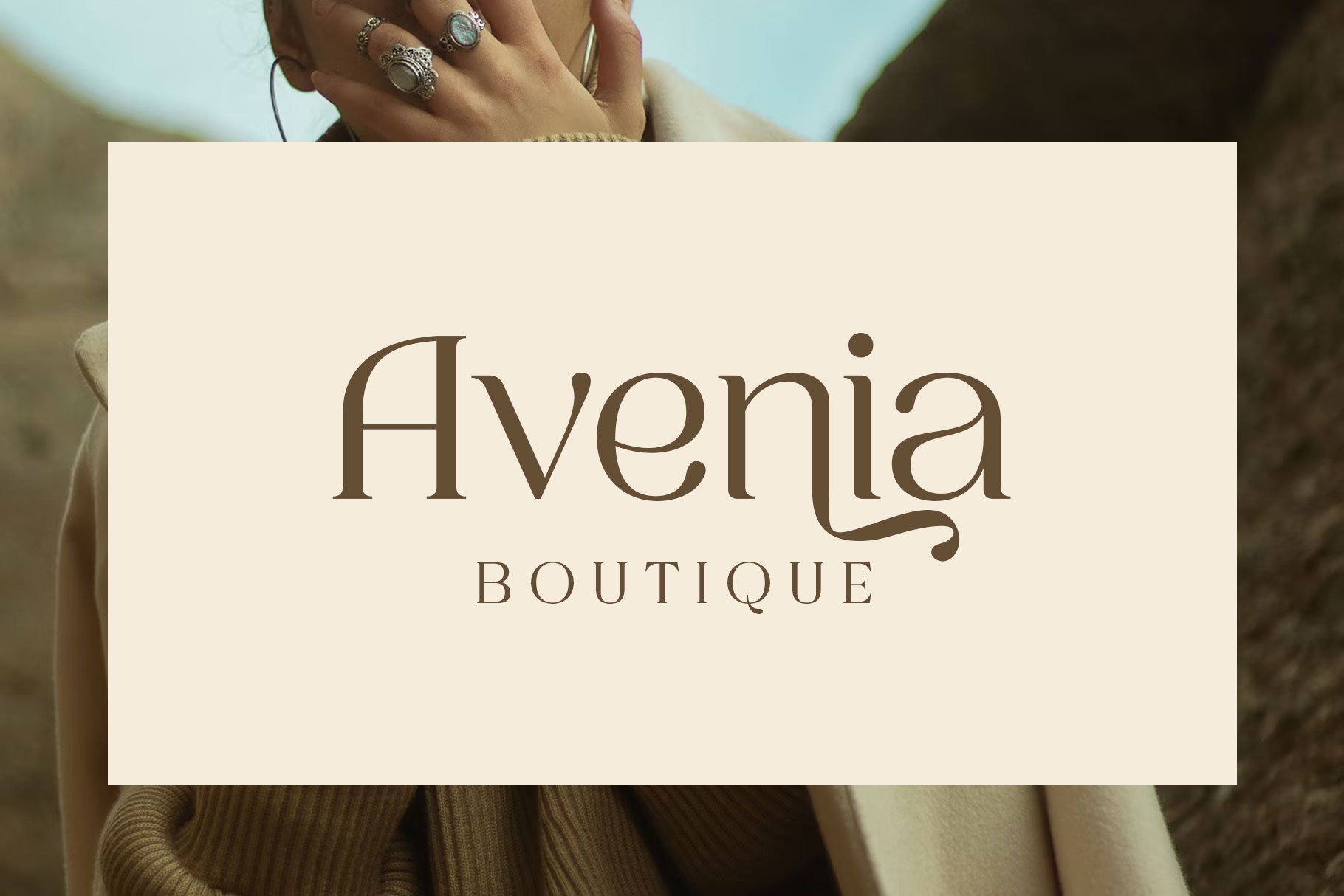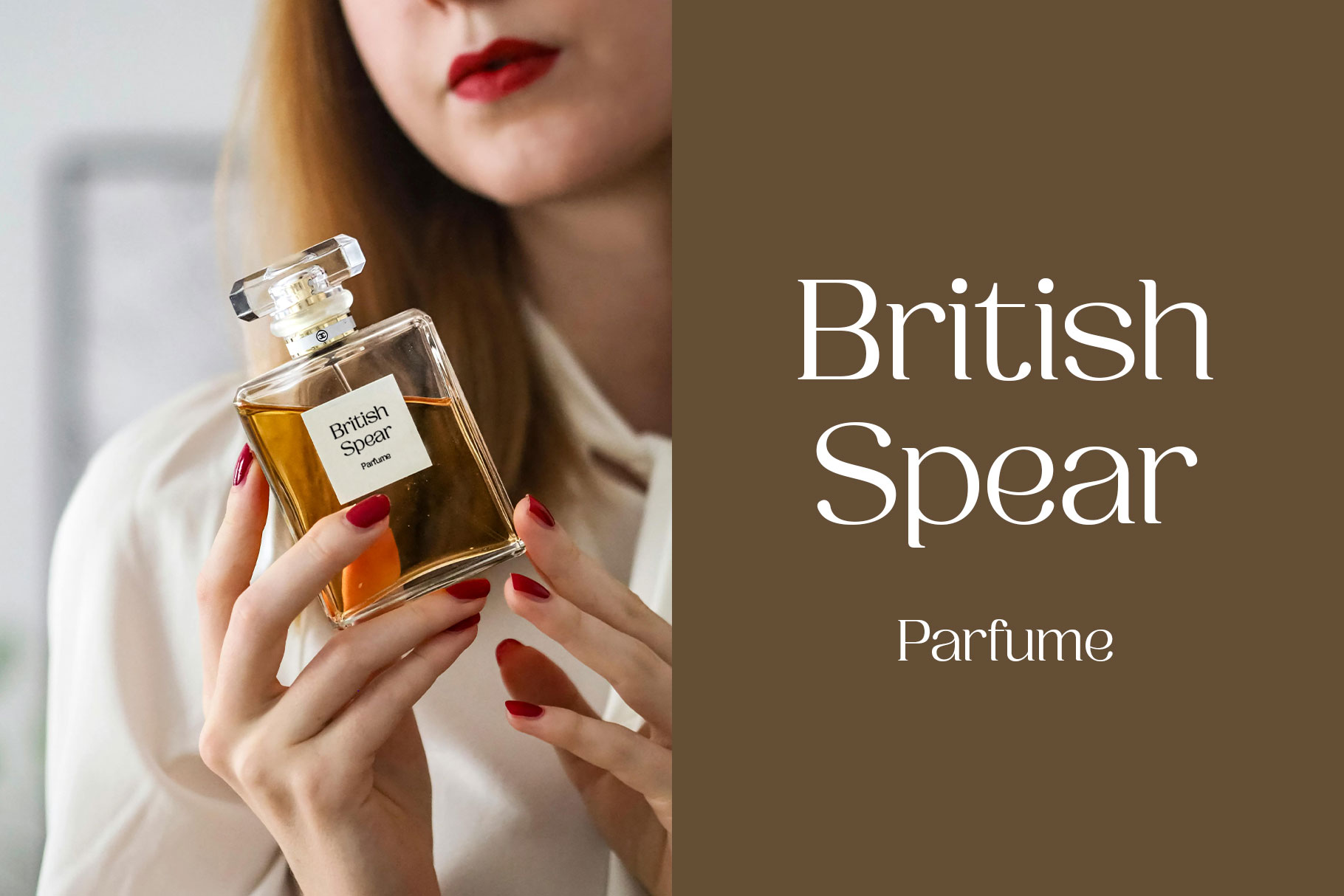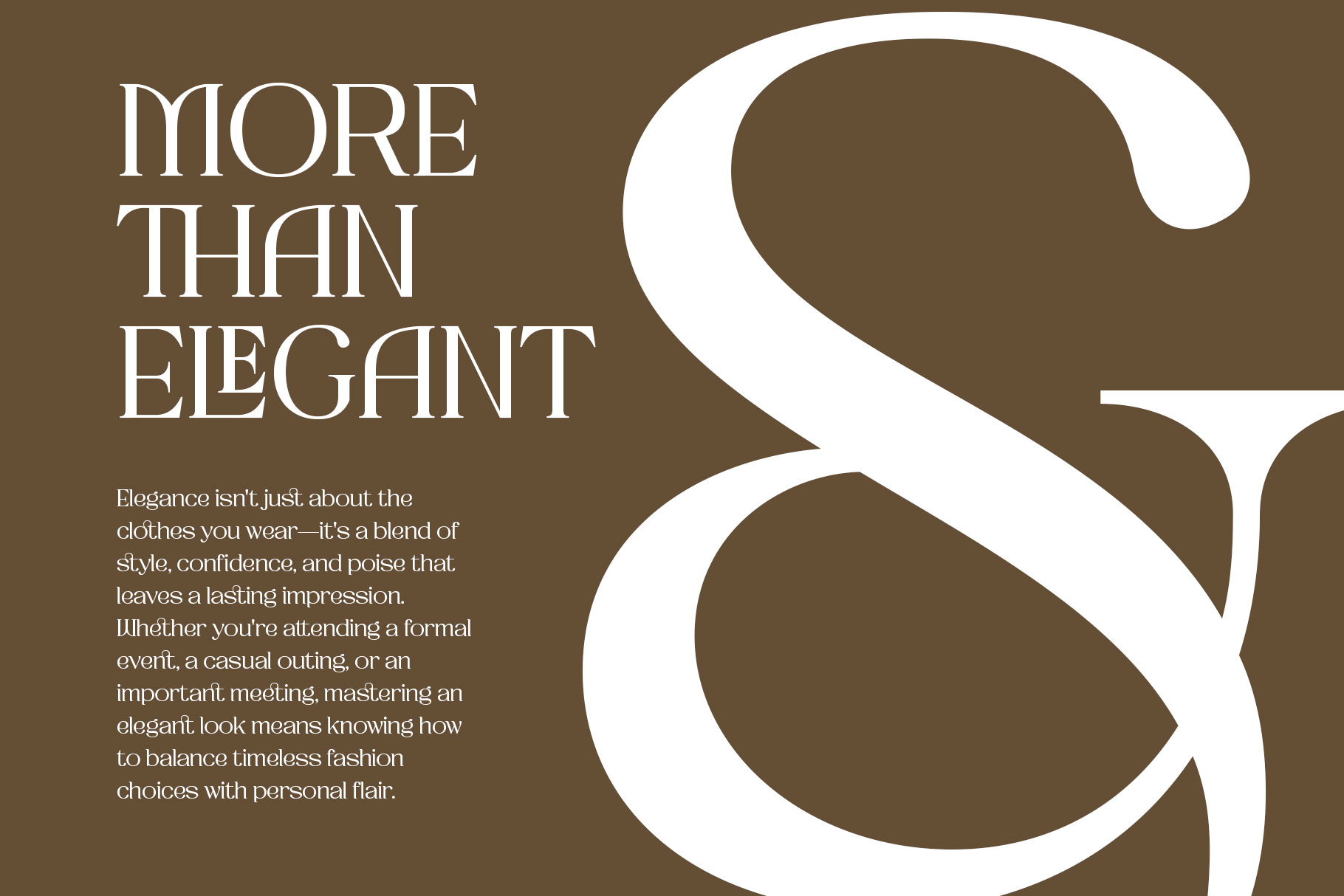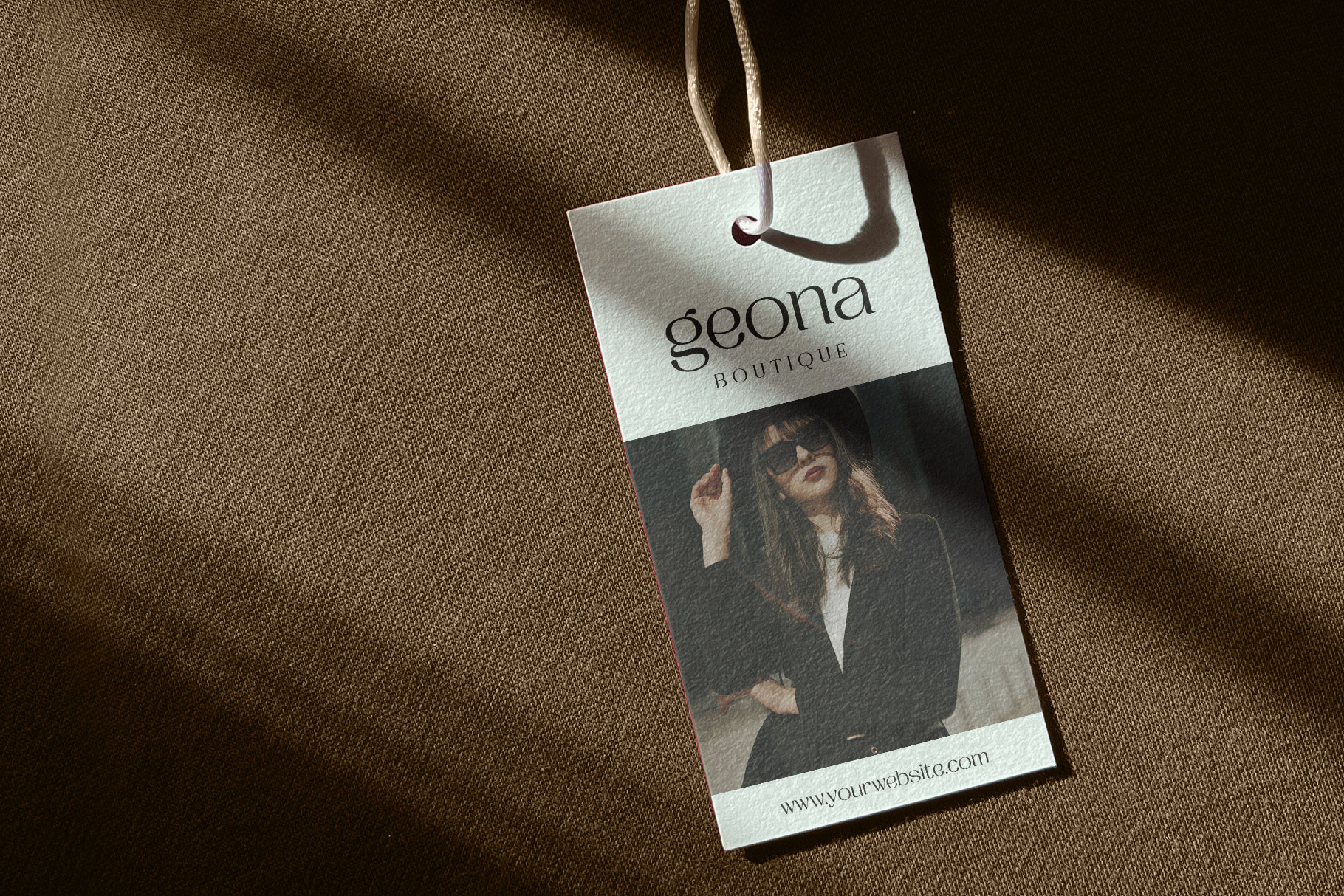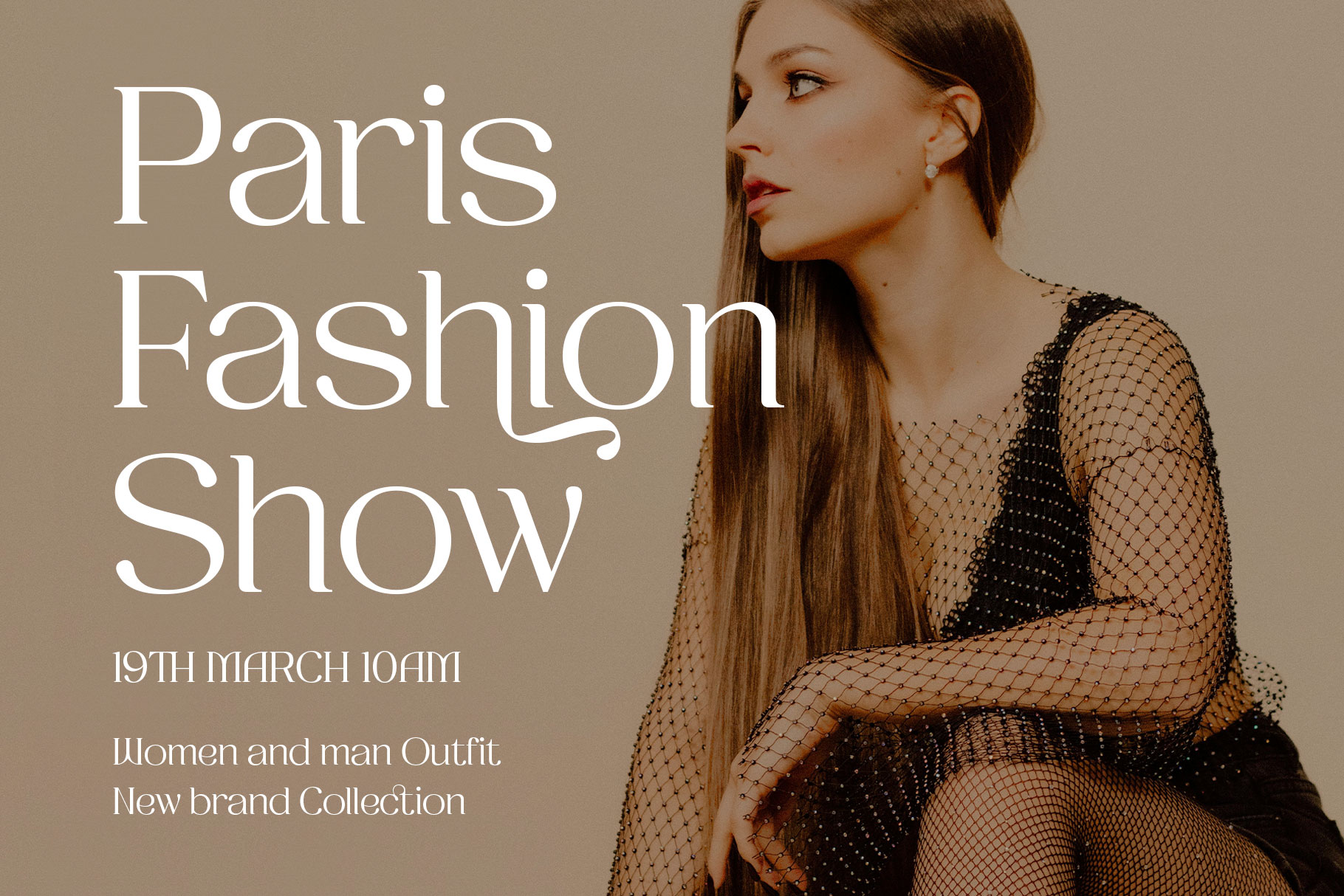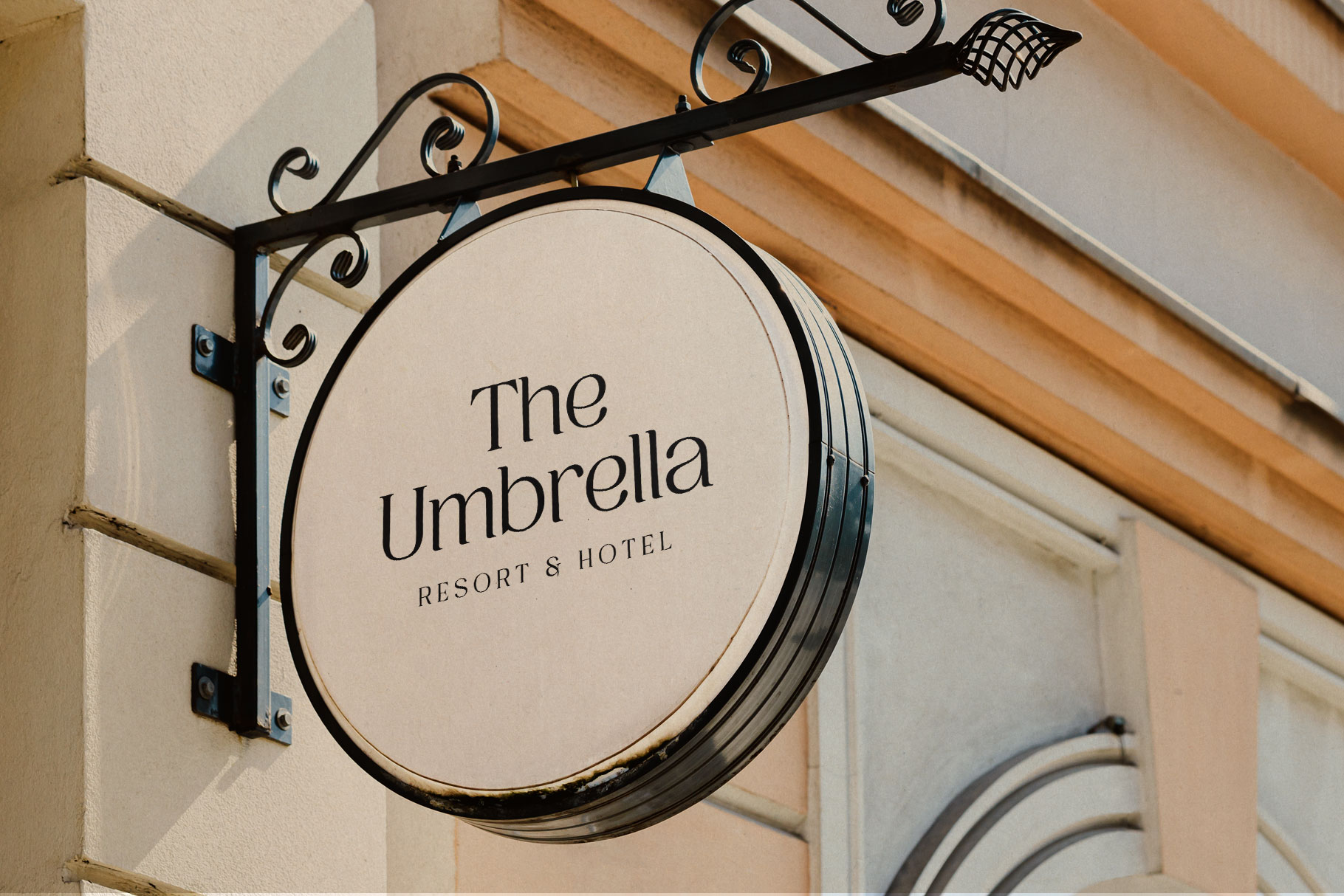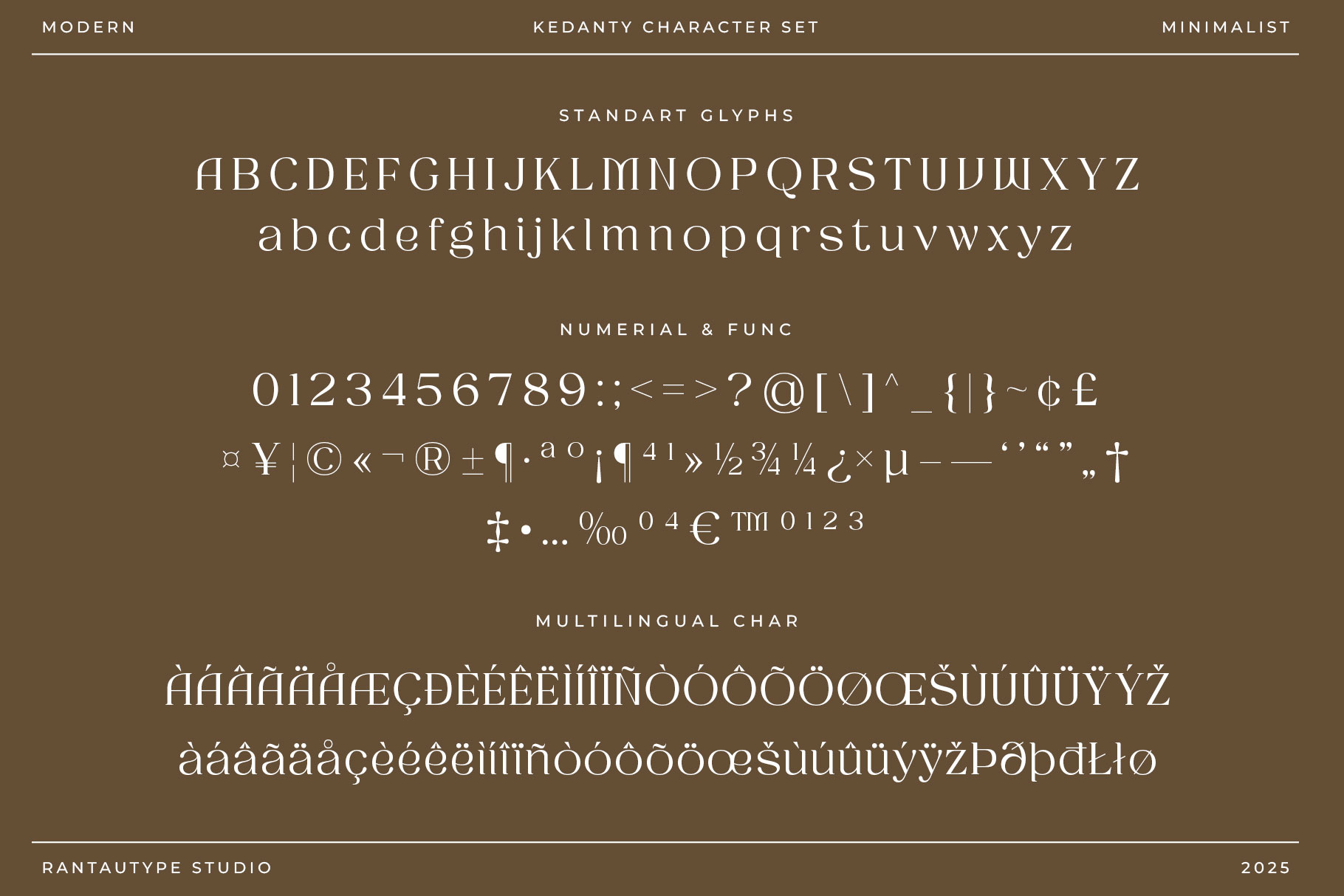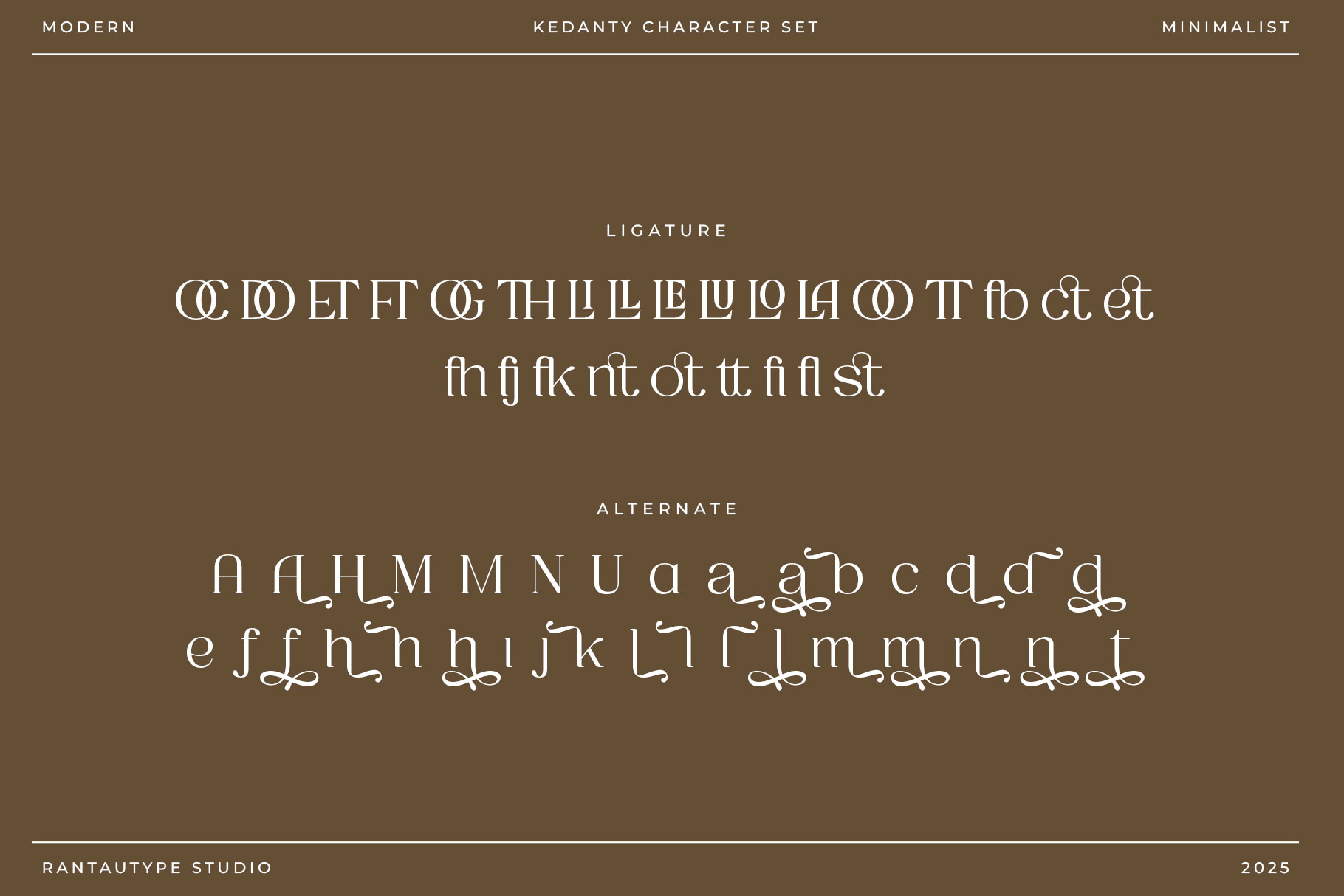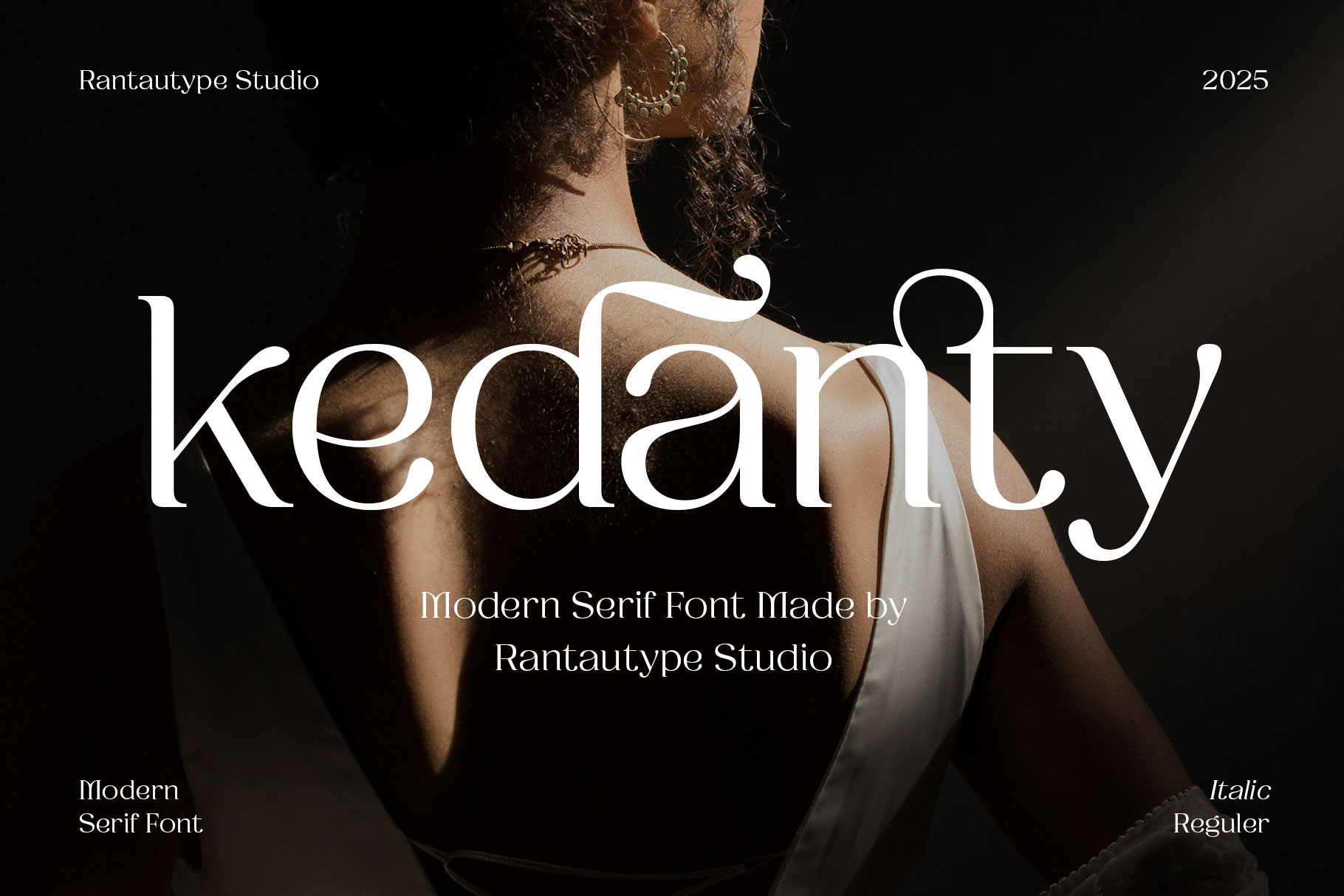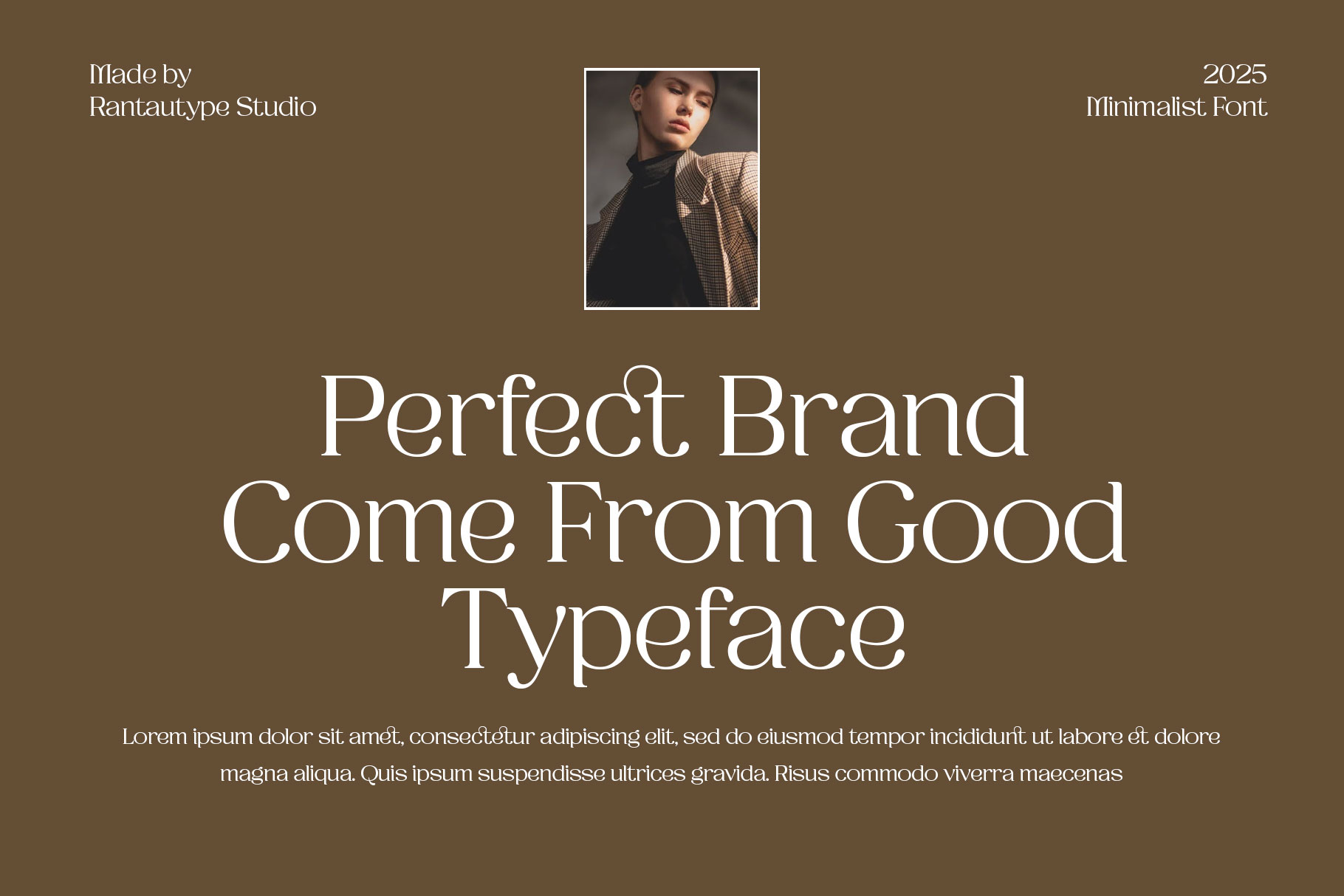
Kedanty Modern Serif Font
Kedanty is elegant serif font embrace grace and feminity. Kedanty is a perfectly choice for any creative endeavor, chic, lifestyle design such as logotype, advertisements, watermark on photography, stationery, branding project, display and magazine, invitation, corporate brand, product design, label, business project and many other project with modern touch.